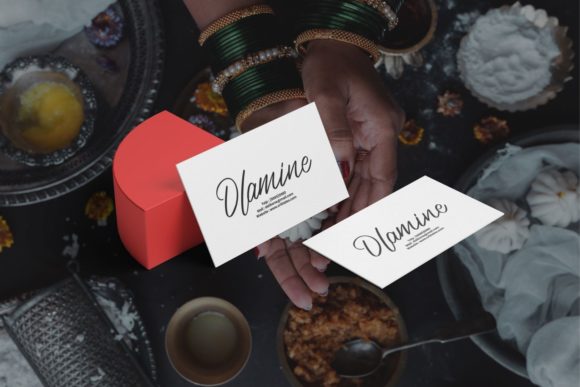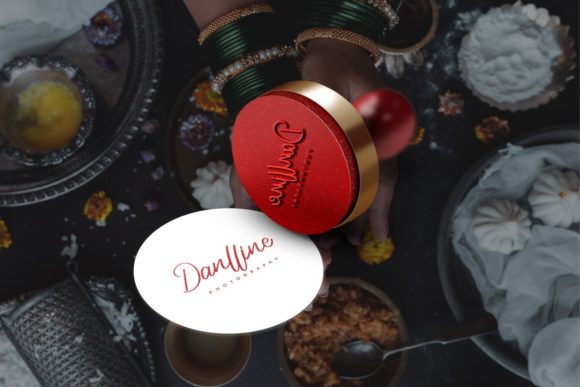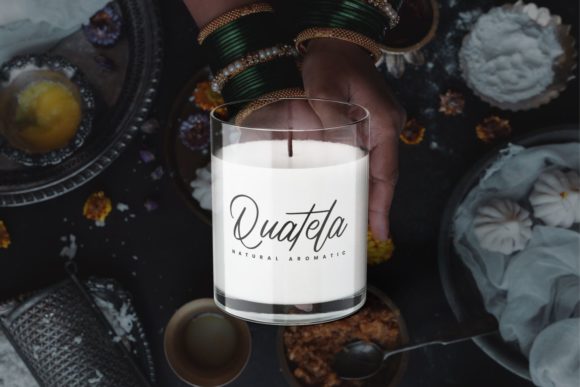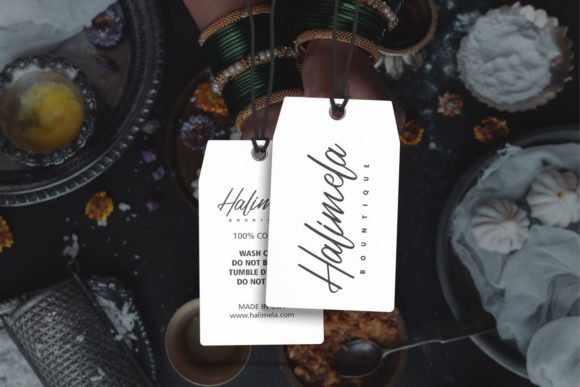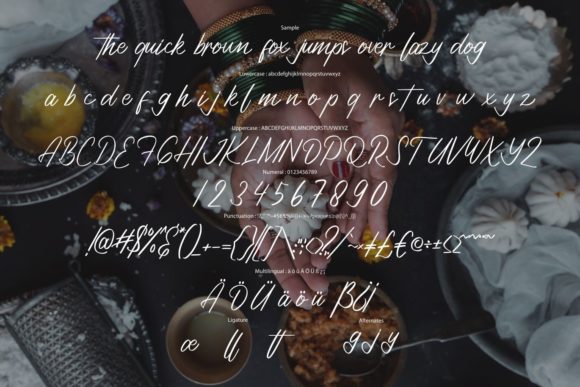
Introduction to Rosttove Font
As designers, we’ve all been there – staring at a blank canvas, searching for the perfect font to bring our creative project to life. It’s that moment of inspiration when everything clicks, and we finally find the elusive combination of style and elegance that elevates our design from good to great. For many of us, that moment comes when we discover the Rosttove Font.
With its flowing and delicate handwritten style, the Rosttove Font embodies charm and elegance in every character. Whether you’re working on a romantic wedding invitation, a whimsical children’s book, or a sophisticated brand identity, this font is the perfect design resource to add a touch of loveliness to your project.
One of the things that sets the Rosttove Font apart from other free downloads is its high quality and versatility. With a transparent background and a range of styles to choose from, you can use this font to create unique and eye-catching designs that truly stand out from the crowd.
Key Features of Rosttove Font
- High-quality font designed for creative projects, ideal for use in graphic design, digital art, and other visual mediums.
- Designed with a unique, stylish aesthetic, making it perfect for adding a touch of sophistication to any creative project.
Honest Review: Rosttove Font
One of the standout features of the Rosttove Font is its transparent background, making it easy to use with any design or creative project. The font itself is high quality, with clean lines and a unique style that’s sure to catch the eye.
- ✨ High-quality design
- ✨ Transparent background
- ✨ Suitable for various creative projects
However, there are a few limitations to consider: ⚠️ Limited character set, ⚠️ May not be suitable for large-scale commercial projects.
Overall, I’m impressed with the Rosttove Font. It’s a great resource for designers and creatives, and I would definitely recommend it for smaller-scale projects. However, for larger commercial projects, you may want to consider a more comprehensive font package.
The Rosttove Font is a high-quality, free download design resource ideal for creative projects. With its unique style and transparent background, it’s perfect for adding a touch of elegance to your designs.
Rosttove Font is ideal for creative projects such as:
Business cards and brochures
Magazine and newspaper articles
Social media graphics and ads